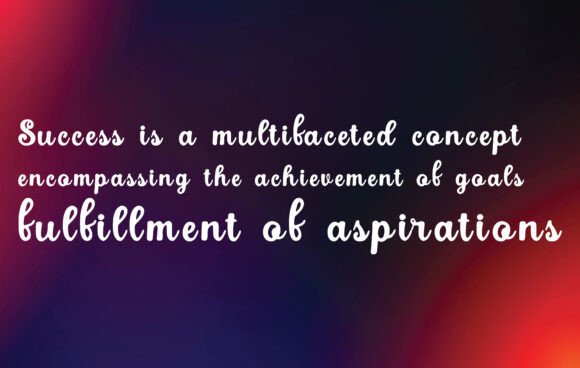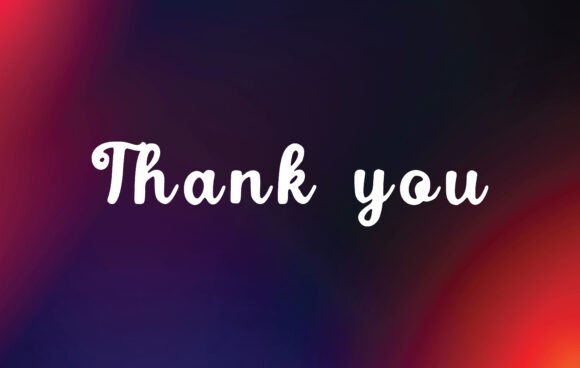
Introducing Adelphia Font: Elevate Your Creative Projects with Elegance
In the world of typography, fonts play a crucial role in bringing creative ideas to life. Among the numerous fonts available, Adelphia stands out as a lovely and beautiful handwritten font that has the potential to take your projects to the highest level. Whether you’re a designer, craftsperson, or simply someone who appreciates the art of typography, Adelphia is an excellent choice for creating eye-catching logos, branding, and quotes.
Handwritten fonts have a unique charm that can add a personal touch to any project. They evoke emotions, convey personality, and create a sense of connection with the reader. Adelphia, in particular, boasts a distinctive elegance that sets it apart from other handwritten fonts. Its flowing lines, delicate curves, and harmonious proportions make it a versatile choice for a wide range of applications.
Why Choose Adelphia Font?
So, what makes Adelphia an excellent choice for designers and crafters? Here are a few reasons:
• Elegance and Sophistication: Adelphia exudes refinement and poise, making it perfect for projects that require a touch of luxury and sophistication.
• Versatility: This font can be used for a variety of purposes, from logos and branding to quotes, posters, and social media graphics.
• Readability: Adelphia is designed to be highly legible, ensuring that your message is conveyed clearly and effectively.
• Uniqueness: With its distinctive character, Adelphia helps you stand out from the crowd and establish a strong visual identity.
Using Adelphia for Logos and Branding
Logos and branding are essential components of any business or organization. They serve as a visual representation of your values, mission, and personality. Adelphia font can help you create a memorable and impactful logo that reflects your brand’s essence. Its elegant lines and curves can be used to create a:
• Wordmark: A stylized text-based logo that showcases your brand’s name.
• Letterform: A logo that uses a single letter or a combination of letters to represent your brand.
• Iconic logo: A logo that incorporates a symbol or icon alongside your brand’s name.
Adding a Personal Touch with Adelphia
Crafters and artists can also benefit from using Adelphia font in their work. Whether you’re creating handmade cards, journals, or artwork, Adelphia can add a personal touch to your projects. Its beautiful, handwritten lines can be used to:
• Create custom titles: Add a touch of elegance to your artwork or crafts with Adelphia’s beautiful, flowing lines.
• Design inspirational quotes: Use Adelphia to create visually appealing quotes that inspire and motivate.
• Develop unique journal pages: Add a personal touch to your journal pages with Adelphia’s delicate curves and harmonious proportions.
In conclusion, Adelphia font is a stunning handwritten font that can elevate your creative projects to new heights. Its elegance, versatility, and readability make it an excellent choice for designers, crafters, and anyone looking to add a touch of sophistication to their work. Whether you’re creating logos, branding, quotes, or simply looking for a beautiful font to add a personal touch to your crafts, Adelphia is an excellent choice.